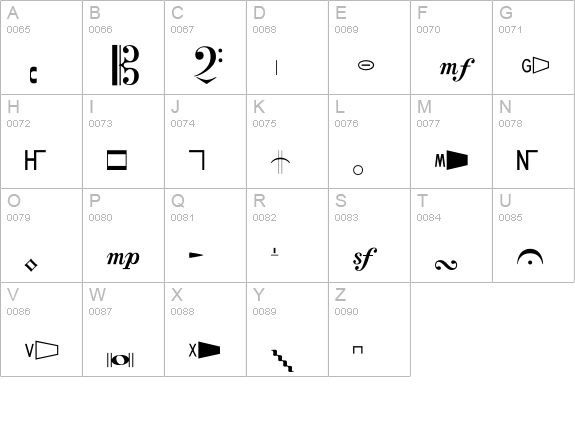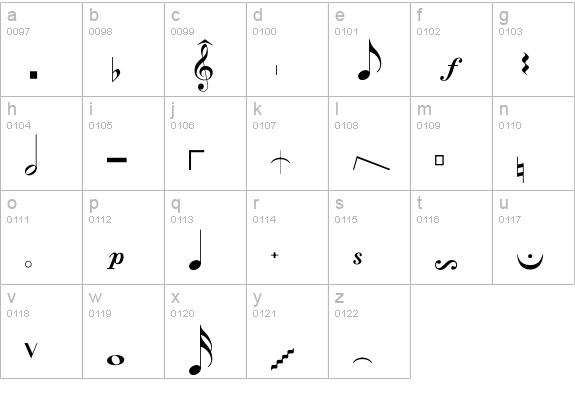
Crescendo Font Details
Introducing Crescendo font, a modern and elegant typeface that exudes sophistication and charm. This versatile font is ideal for a wide range of design projects, from branding to editorial layouts. With its clean lines and subtle curves, Crescendo adds a touch of class to any design. What sets Crescendo font apart is not just its aesthetic appeal, but also the fact that it is completely free to download. That's right - you can elevate your design projects with this beautiful font without spending a penny. Simply head over to FontsMarket.com to freely access and download the Crescendo font today. Whether you're working on a logo, website, or print materials, Crescendo font will bring a touch of sophistication to your designs. Its timeless style and versatility make it a must-have addition to any designer's toolkit. Download Crescendo font for free and take your designs to the next level.